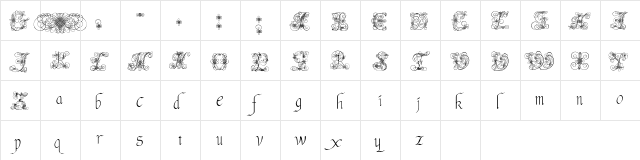
Andrade Swash
Design Context for Andrade Typeface
Andrade brings a calligraphic fluidity to the page — its connecting strokes and expressive curves give it an unmistakably human quality.
Font Pairing: Combine Andrade with a simple geometric sans for maximum contrast — the tension between flowing curves and clean structure is a classic typographic pairing.
Pro Tip: Use Andrade for short runs of text — names, titles, or taglines. Extended body copy in script faces tires the eye quickly.